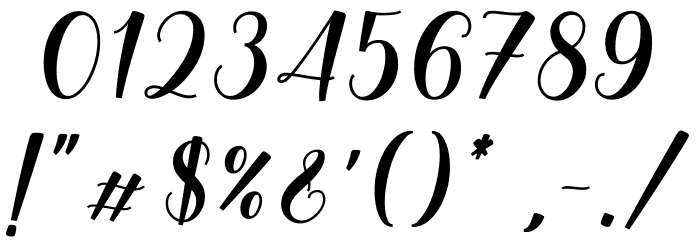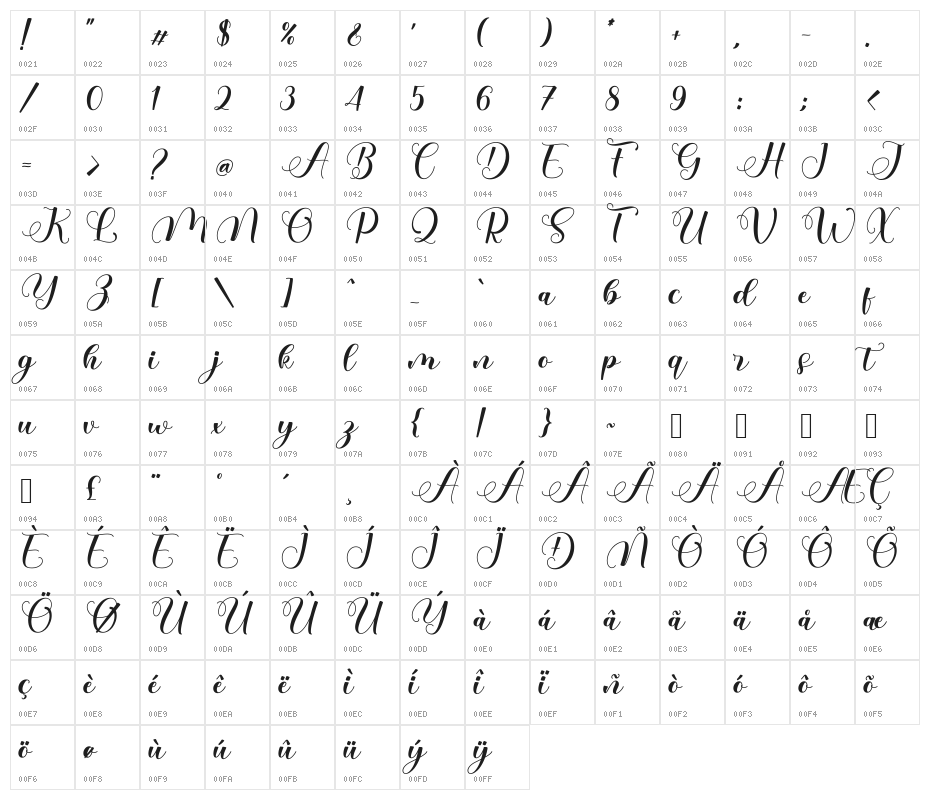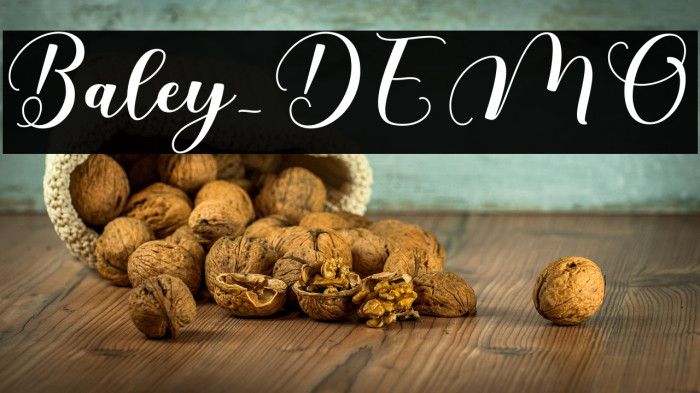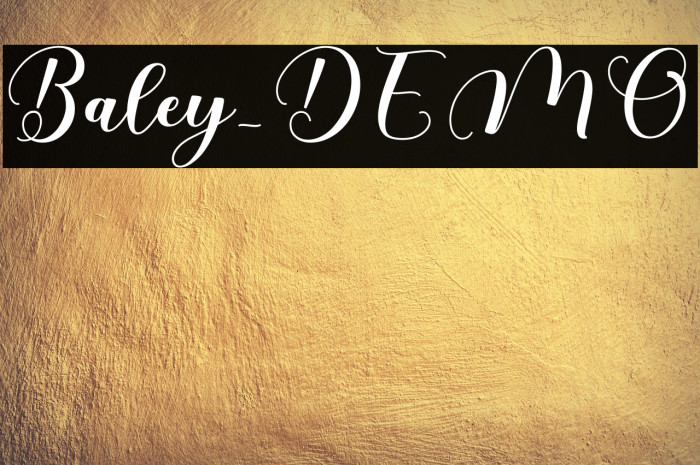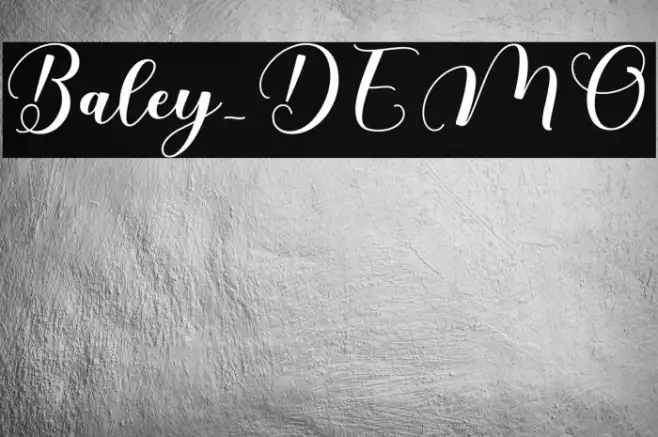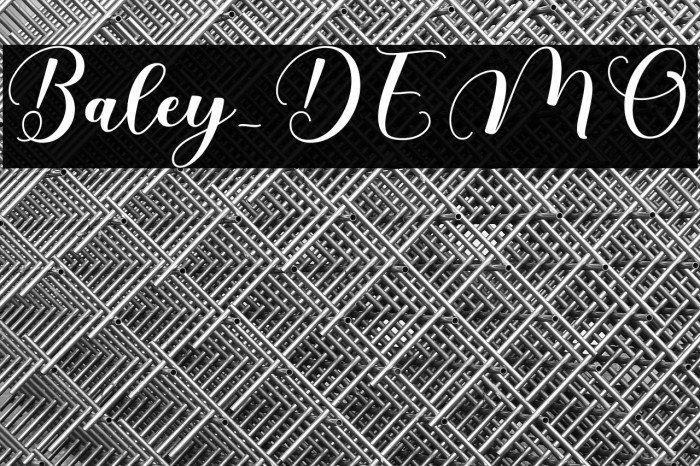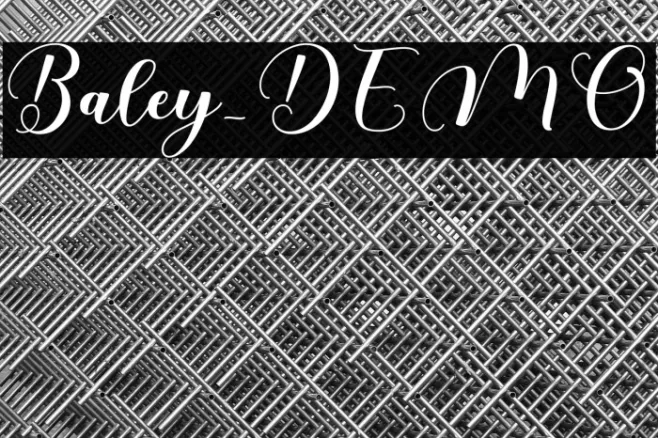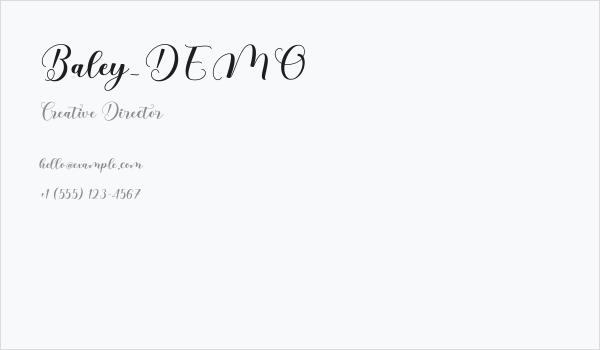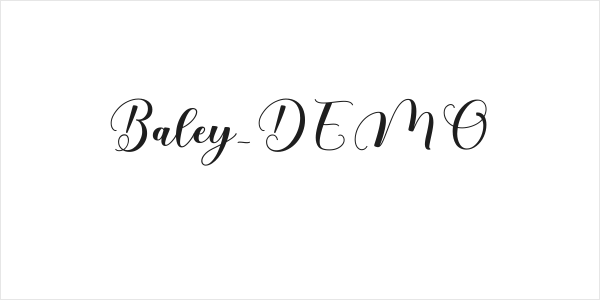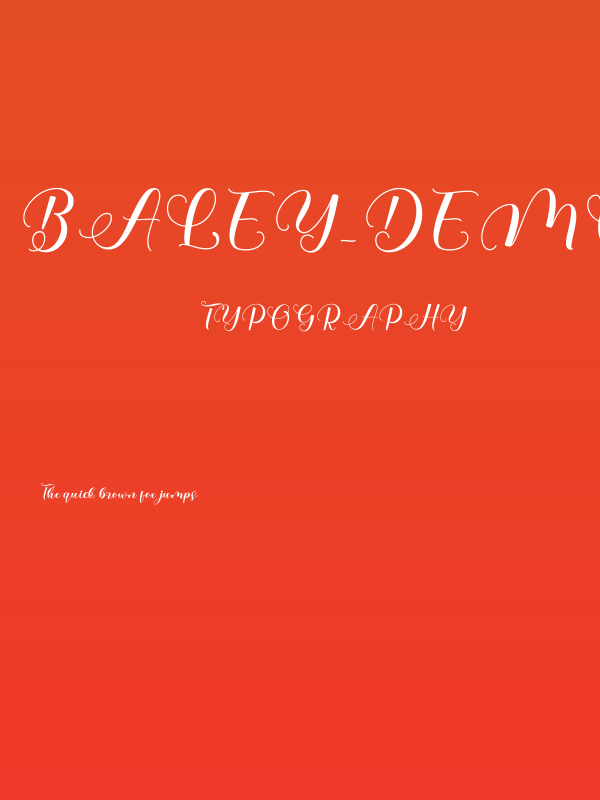
Baley_DEMO Font
Baley_DEMO Description
This elegant script font features a flowing, cursive style with intricate swashes and flourishes that add a touch of sophistication. The uppercase letters are ornate, with loops and curves that create a sense of movement and grace. The lowercase letters maintain a consistent style, offering a harmonious blend of readability and artistic flair. The numerals are designed to complement the overall aesthetic, with similar curves and embellishments. Special characters are thoughtfully integrated, ensuring versatility for various design needs. This font exudes a sense of luxury and refinement, making it ideal for projects that require a touch of elegance.
| Overall Style | Elegant, Sophisticated |
| Proposed Projects | Ideal for wedding invitations, luxury branding, high-end product packaging, and elegant event posters. |